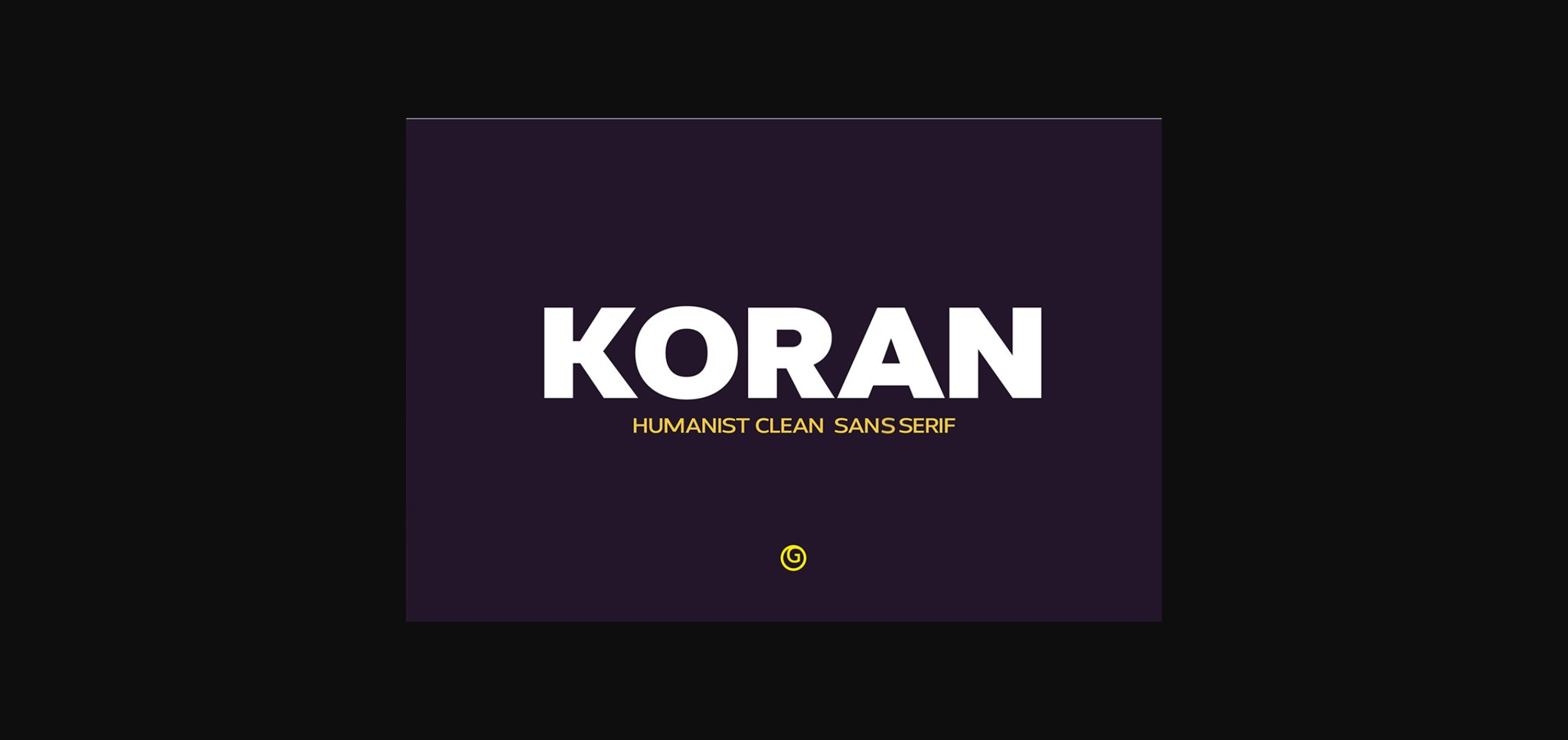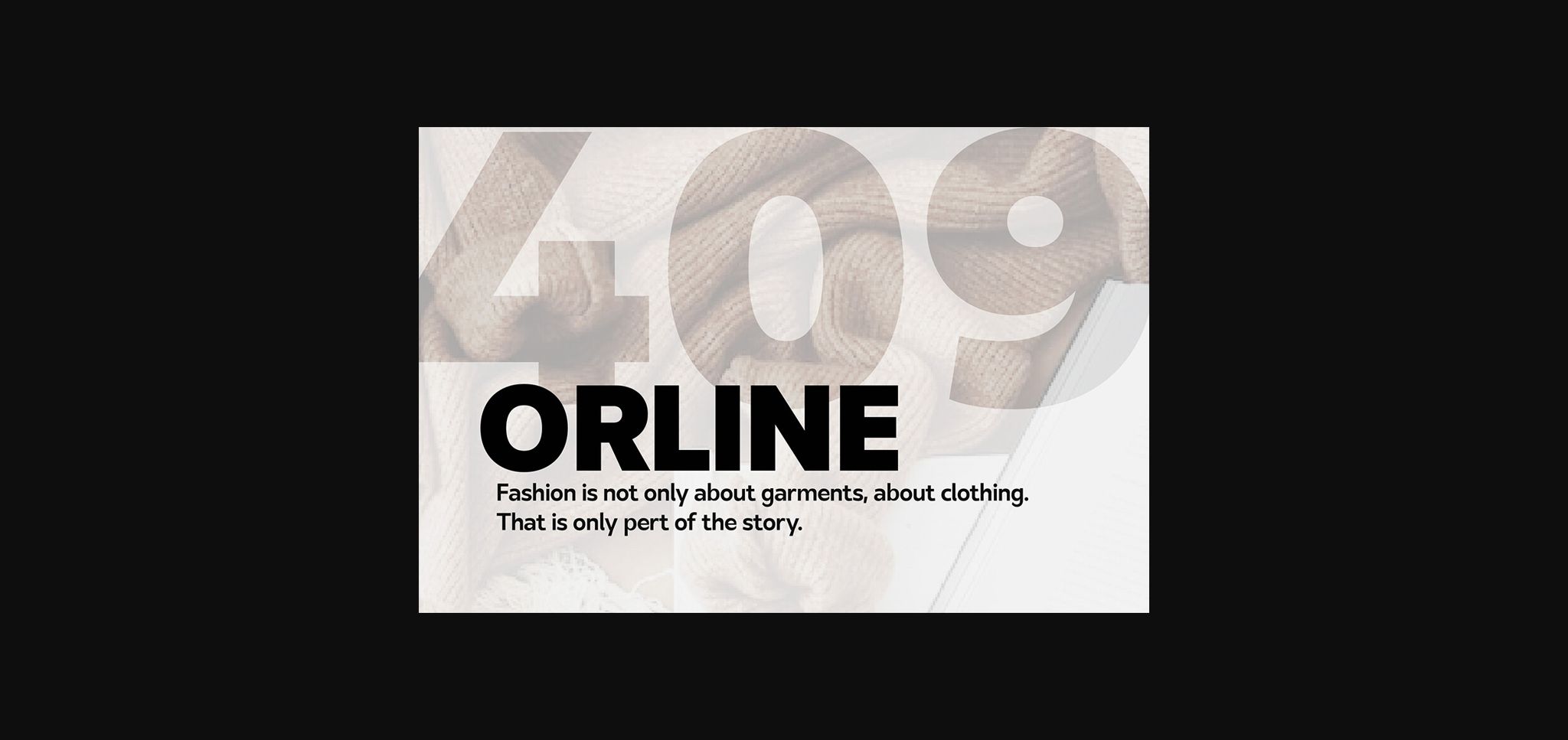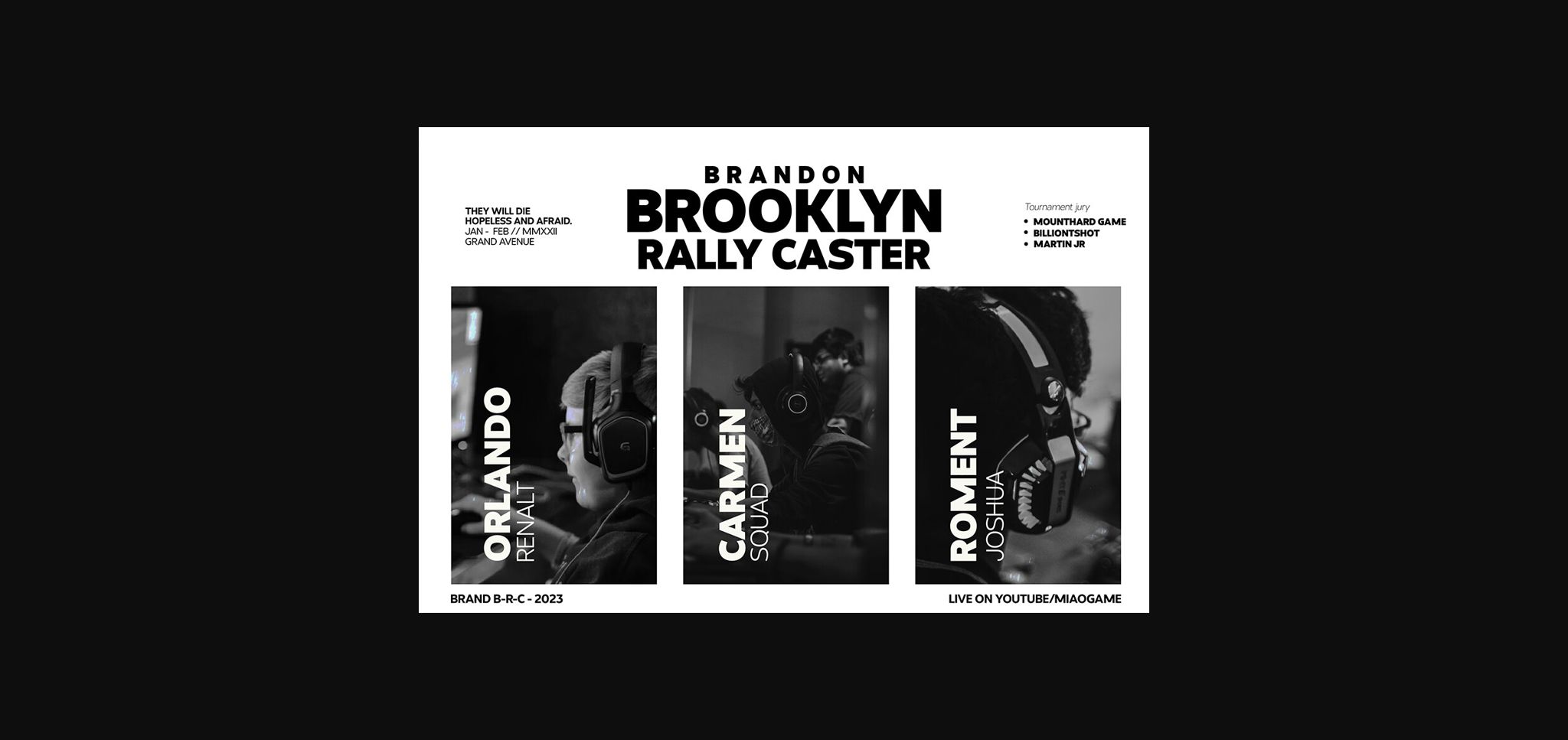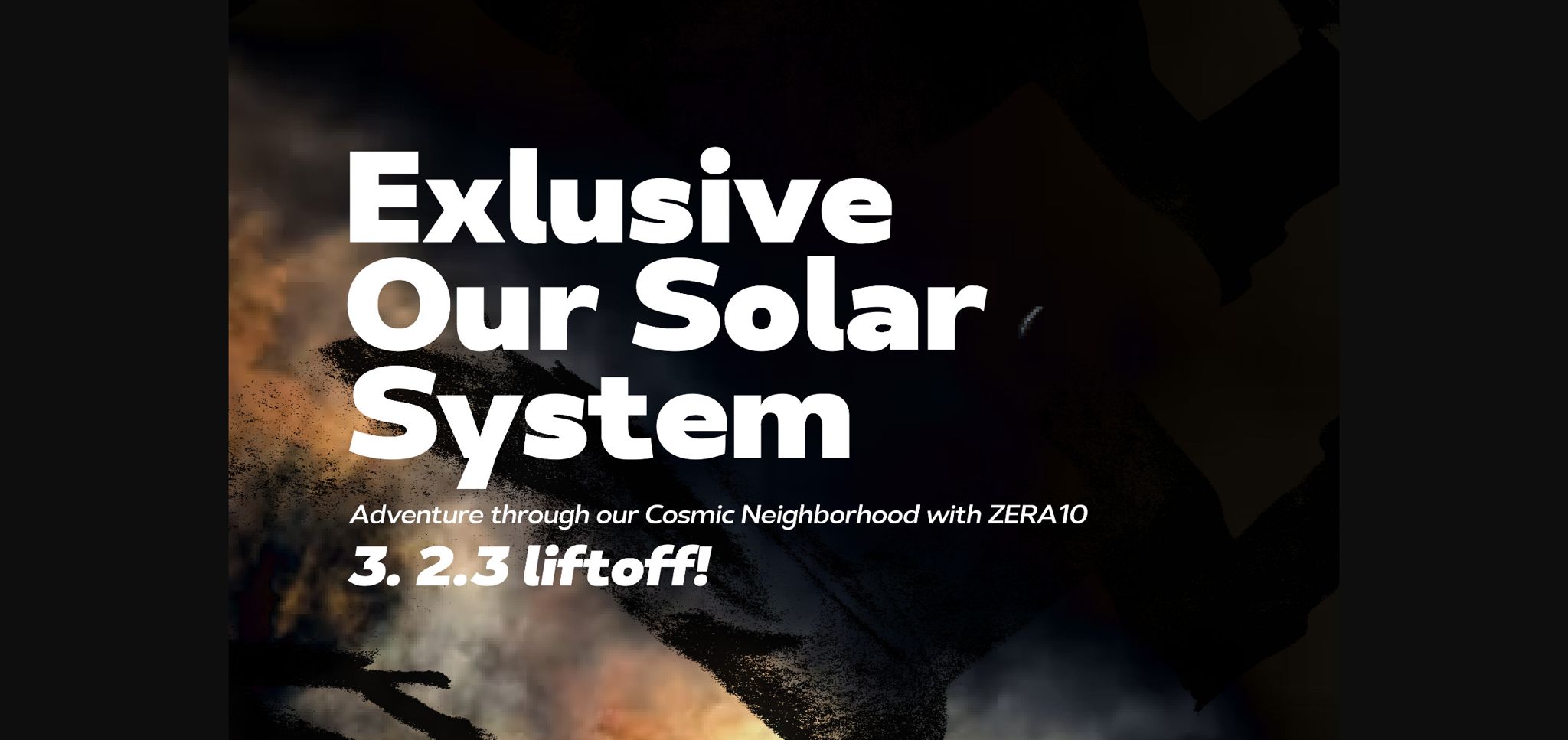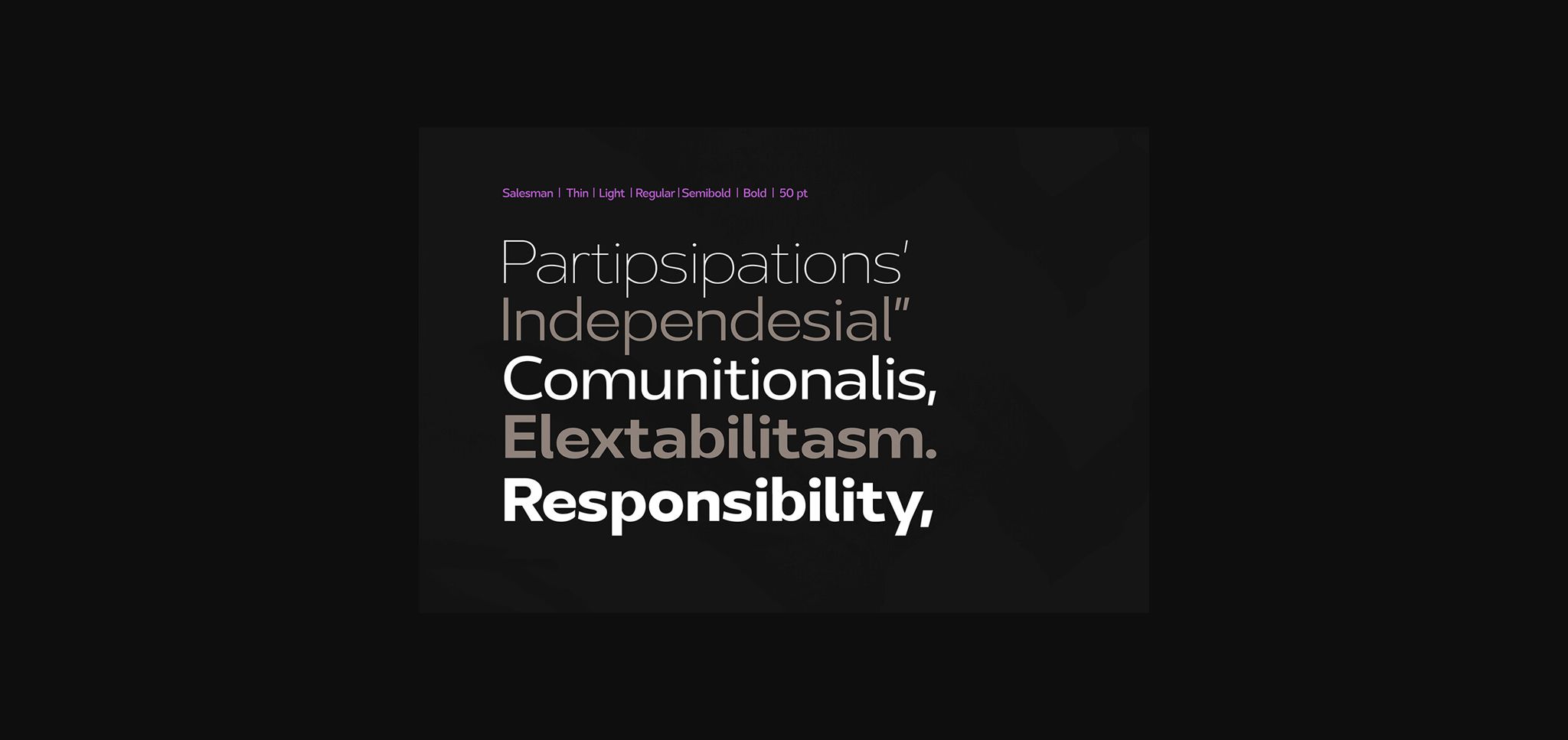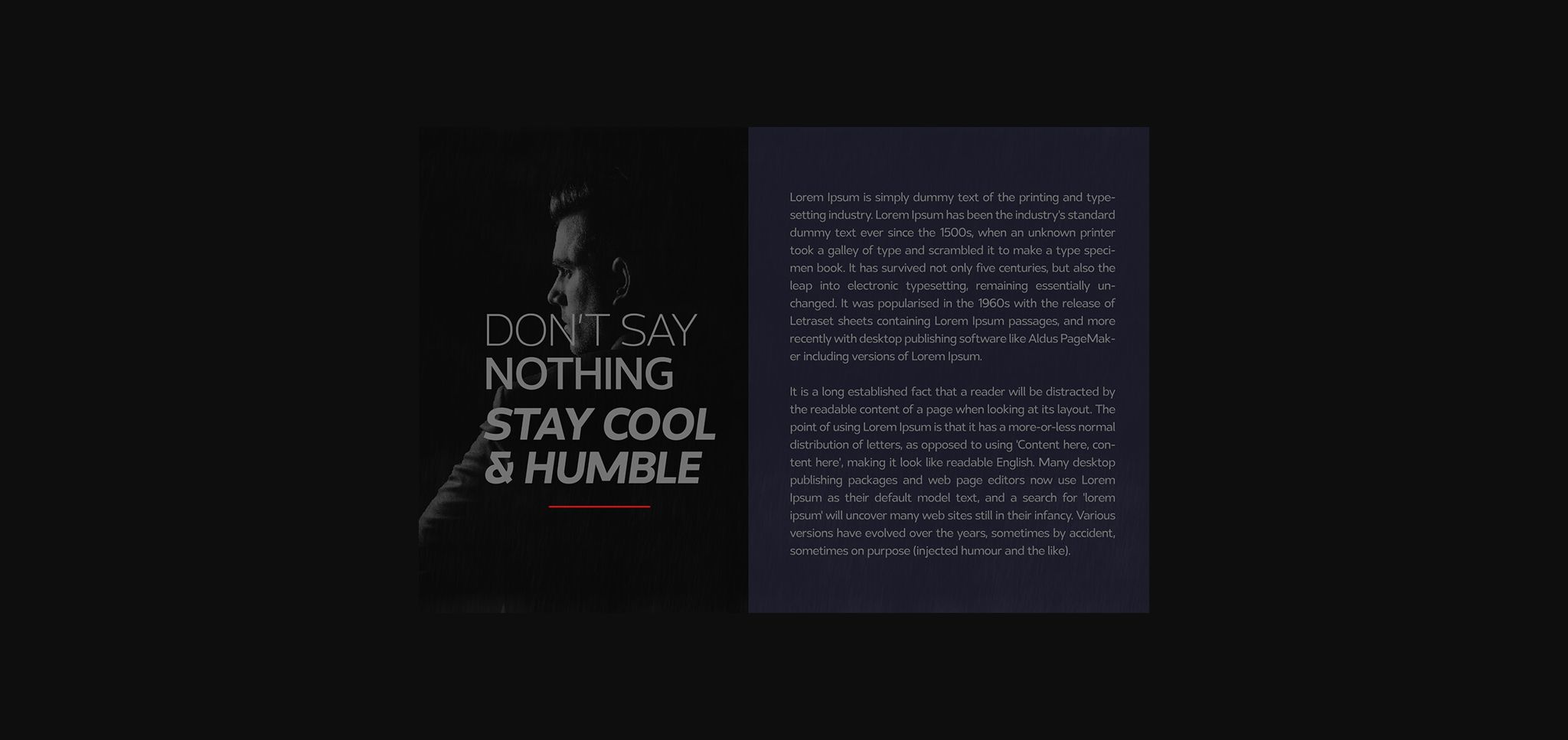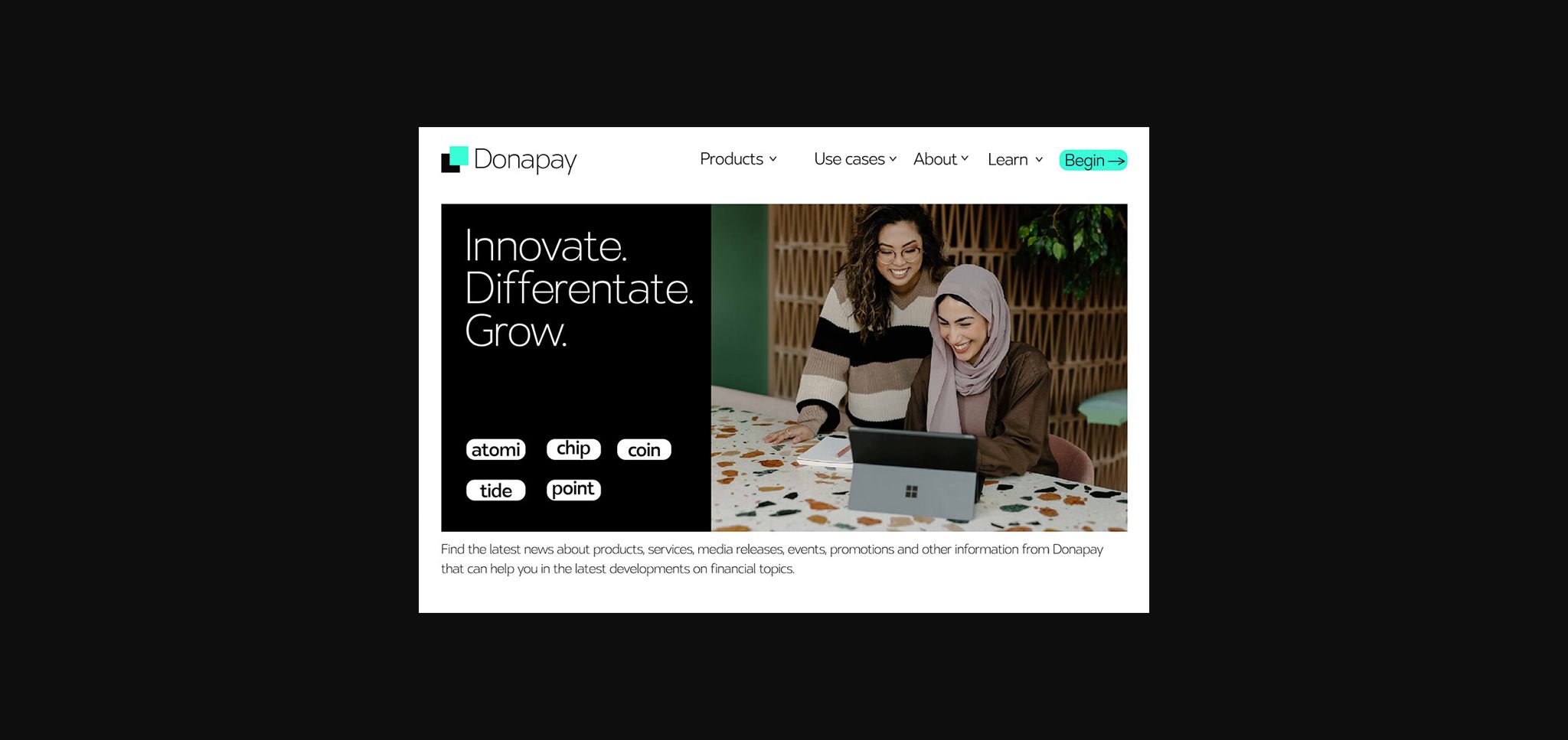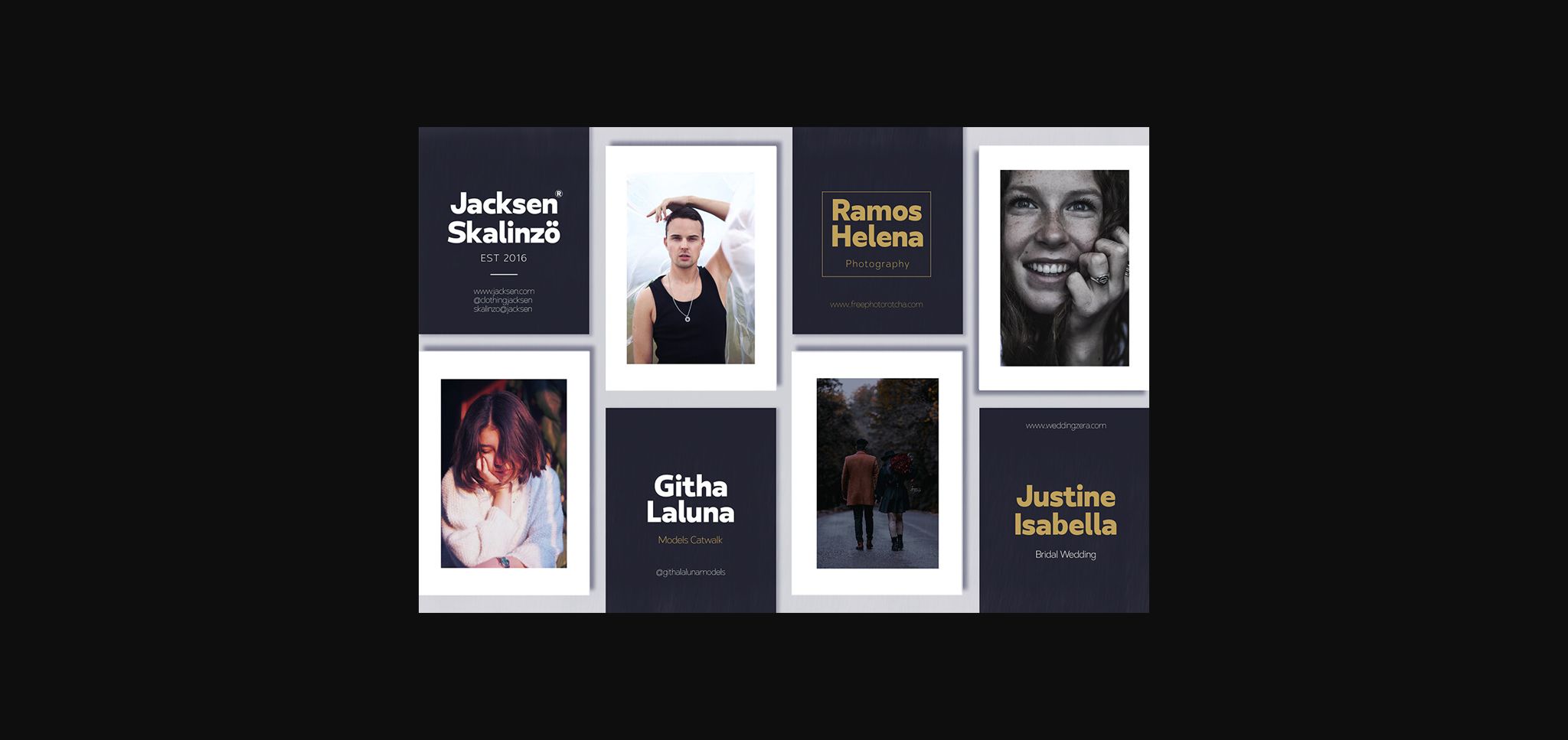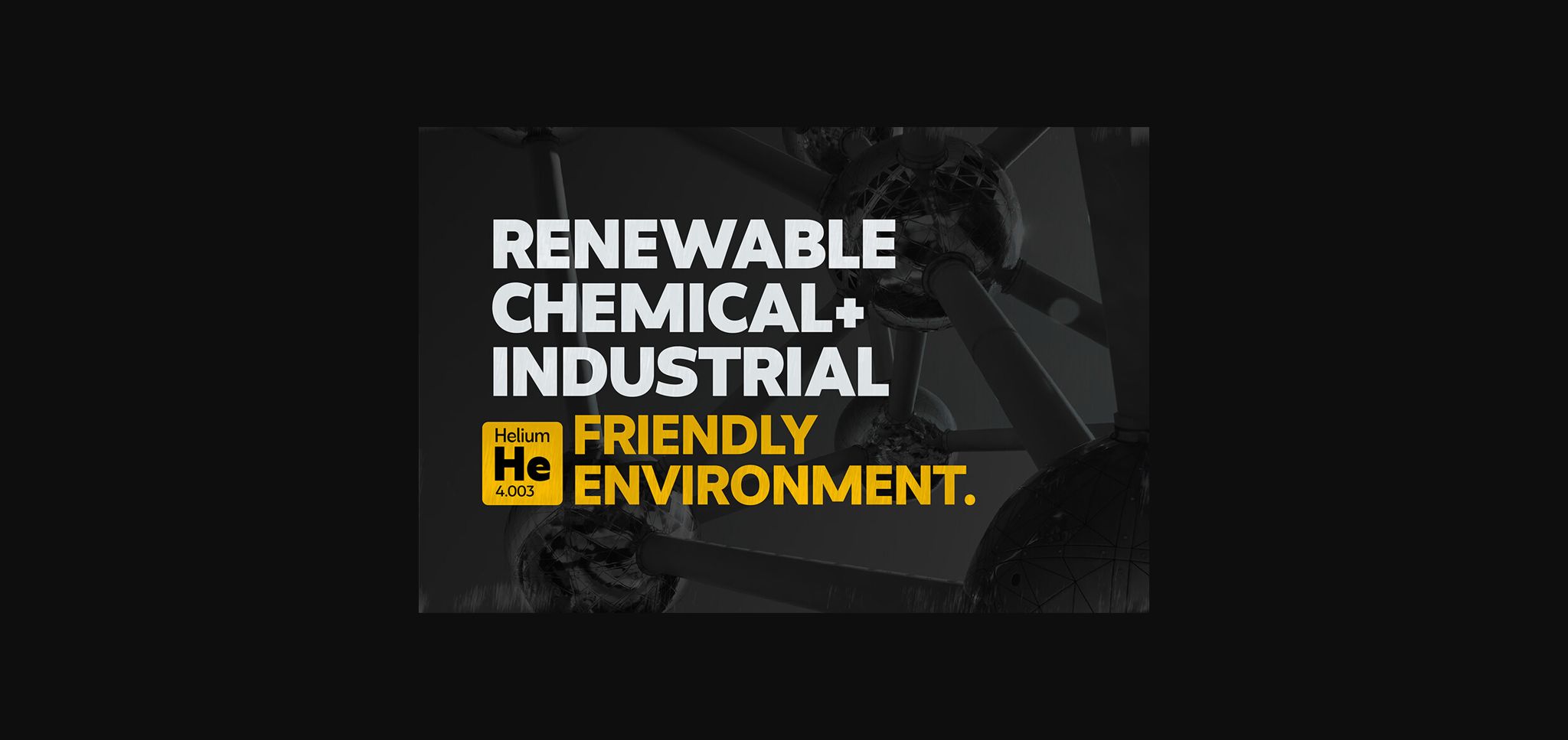
Koran Font
About Koran Font
Koran Sans is a clean family sans that is absolutely perfect for editorial headlines. The complete font family of upright and italic letters makes it easy for you to use 18 styles in many projects. This font style is bold, bold, and sleek, making it perfect for editorial, web, posters, t-shirts, magazine covers, etc
Koran sans exudes character but is still useful thanks to its restrained geometric styling and modern construction.